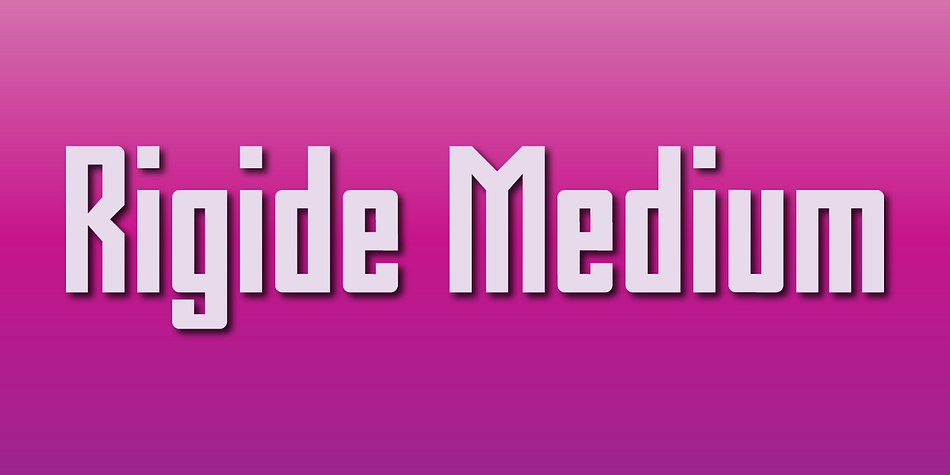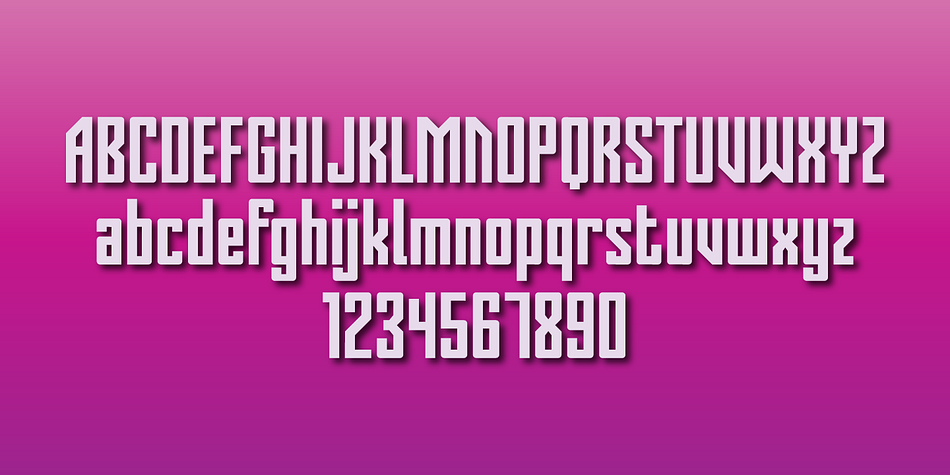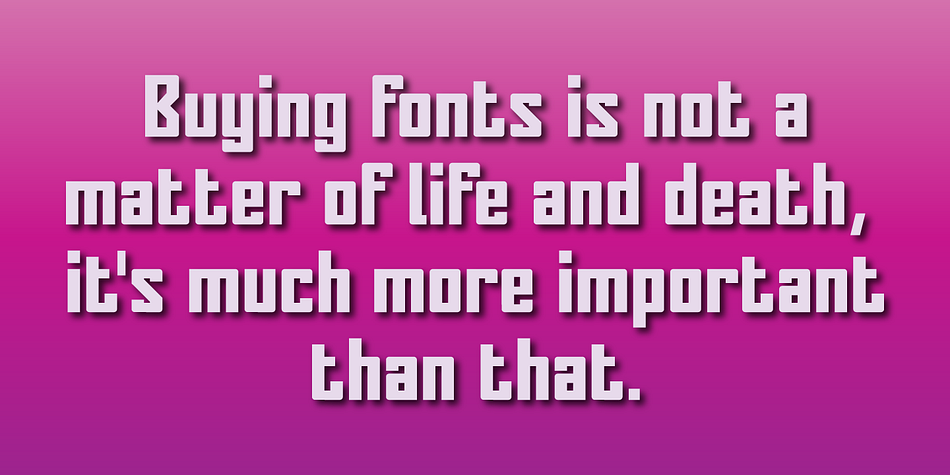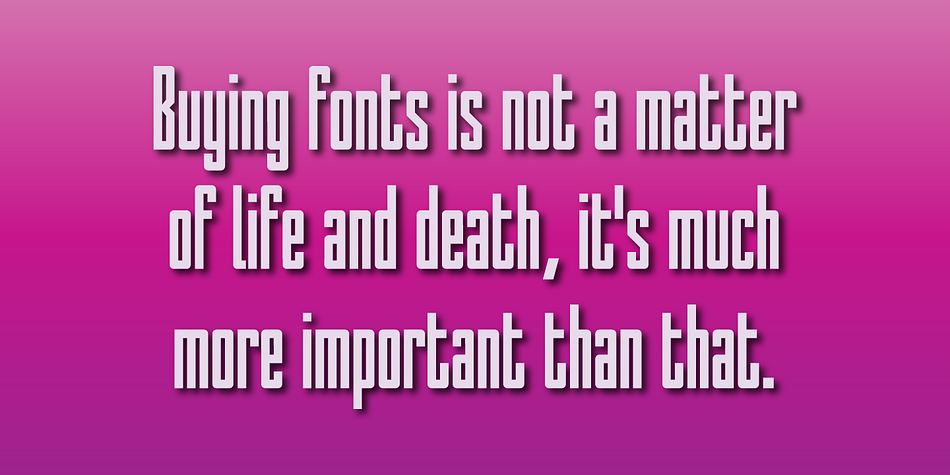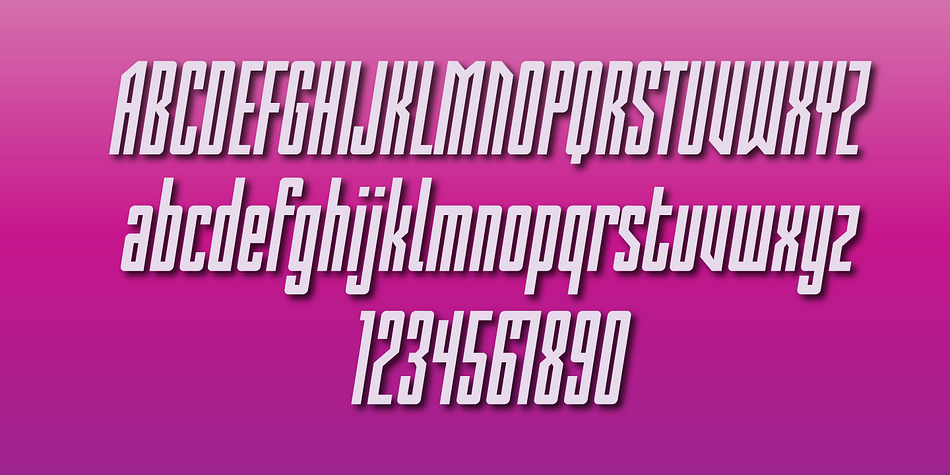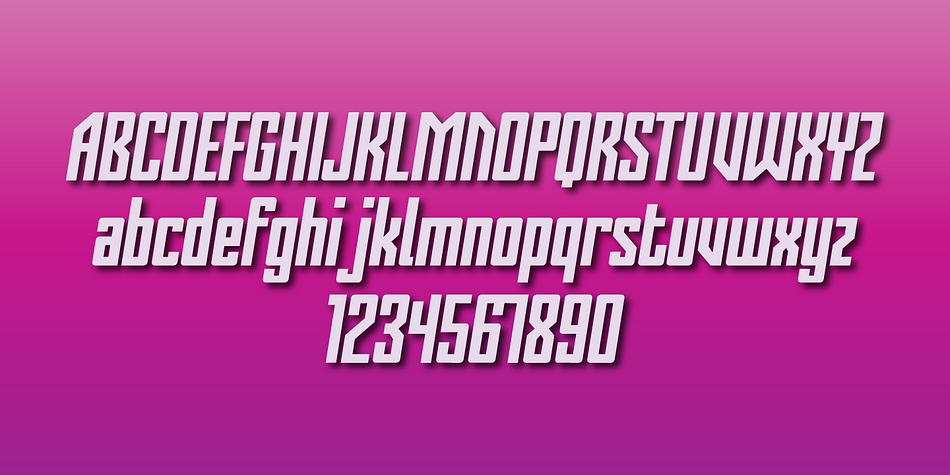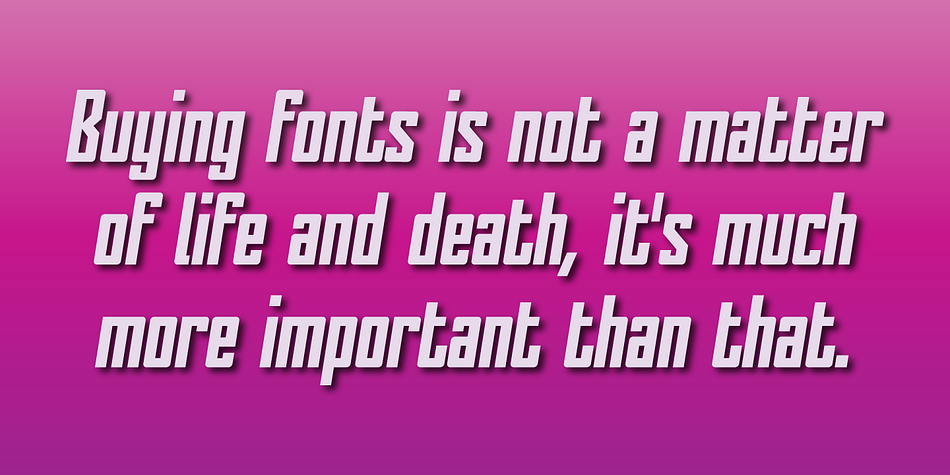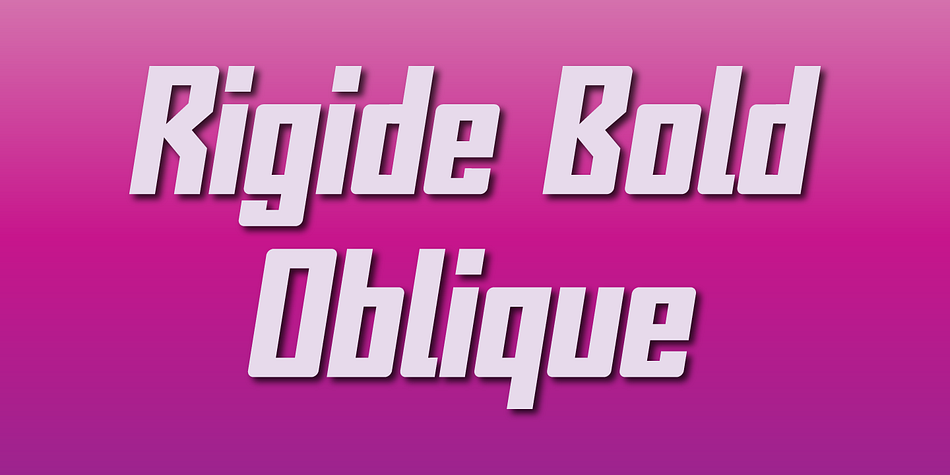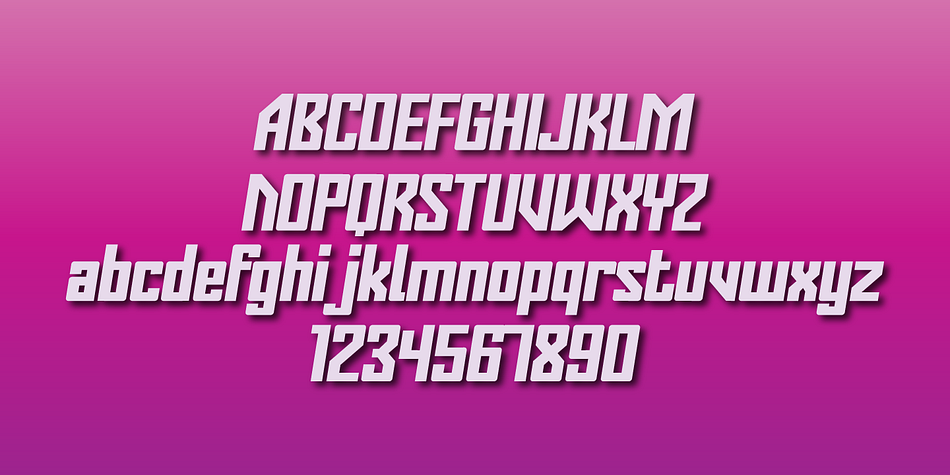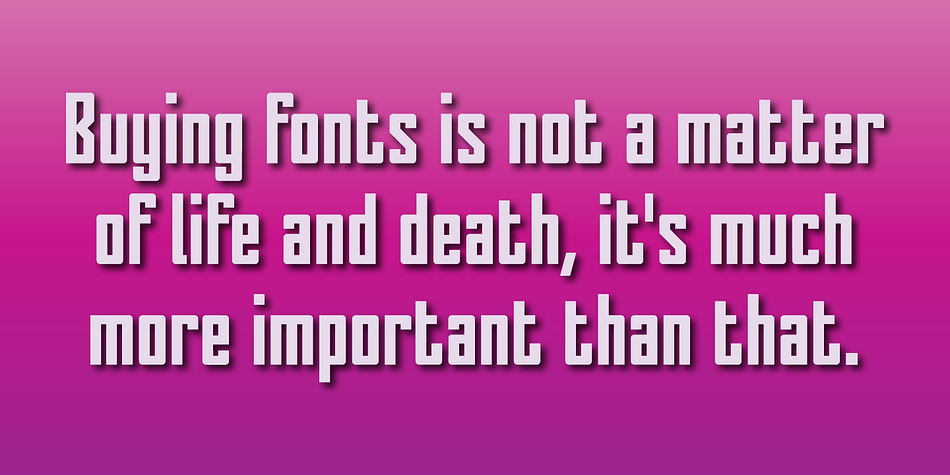
Designed by Gerald Gallo, Rigide is a display sans font family. This typeface has six styles and was published by Gerald Gallo Fonts.
Rigide is a clean, contemporary, geometric, condensed font family. There are 6 fonts in the Rigide family, Rigide Light, Rigide Light Oblique, Rigide Medium, Rigide Medium Oblique, Rigide Bold and Rigid Bold Oblique. The Rigide fonts are ideal for headlines, titles, branding and small blocks of text.